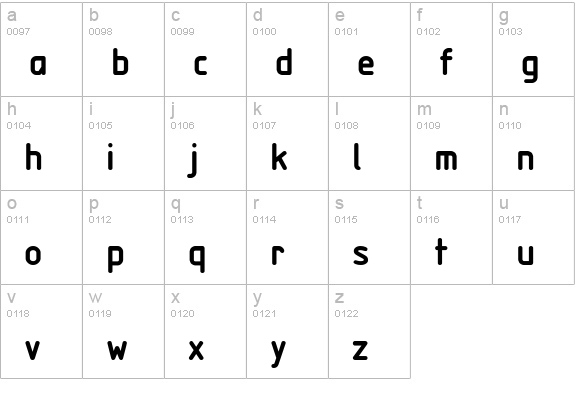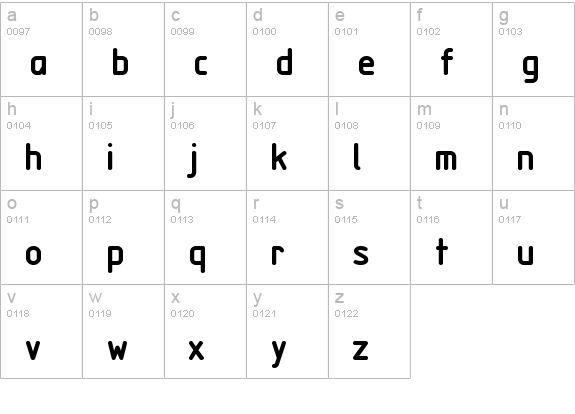
PFMecanorm Bold Font Details
PFMecanorm Bold is a strong, high-contrast variant in the PFMecanorm typeface family \xE2\x80\x94 well suited to headlines, attention-grabbing titles, and strong calls-to-action.
PFMecanorm Bold font is a striking display typeface that exudes strength and modernity. With its bold and sturdy letterforms, this font is perfect for making a statement in headlines, titles, and branding materials. The geometric shapes and sharp angles give PFMecanorm Bold a contemporary look that is sure to catch the eye. What makes PFMecanorm Bold font even more appealing is that it is available for free download at FontsMarket.com. This means you can easily access this powerful font for your design projects without any cost. Whether you are working on print materials, digital designs, or web projects, PFMecanorm Bold font is a versatile choice that will add impact and style to your creations. Download now and enhance your designs with this bold and dynamic typeface.